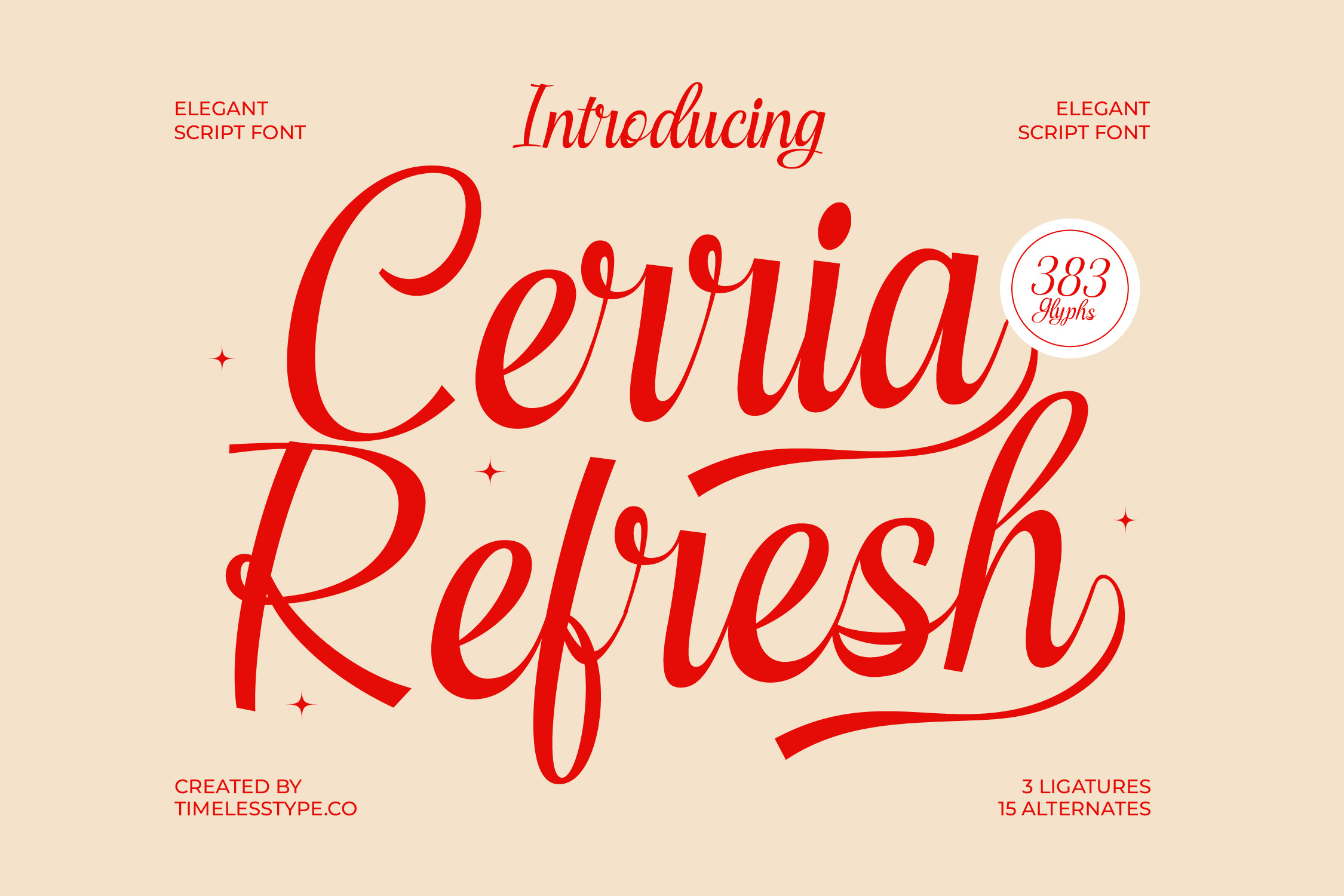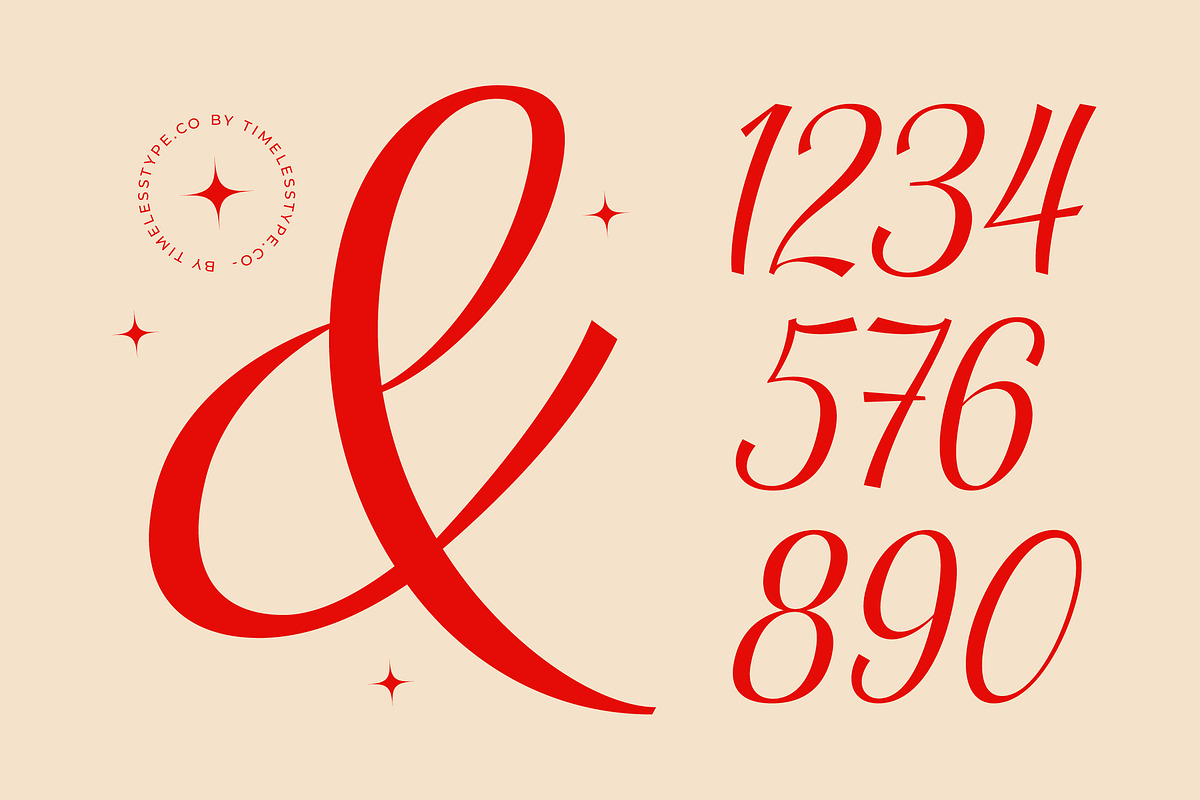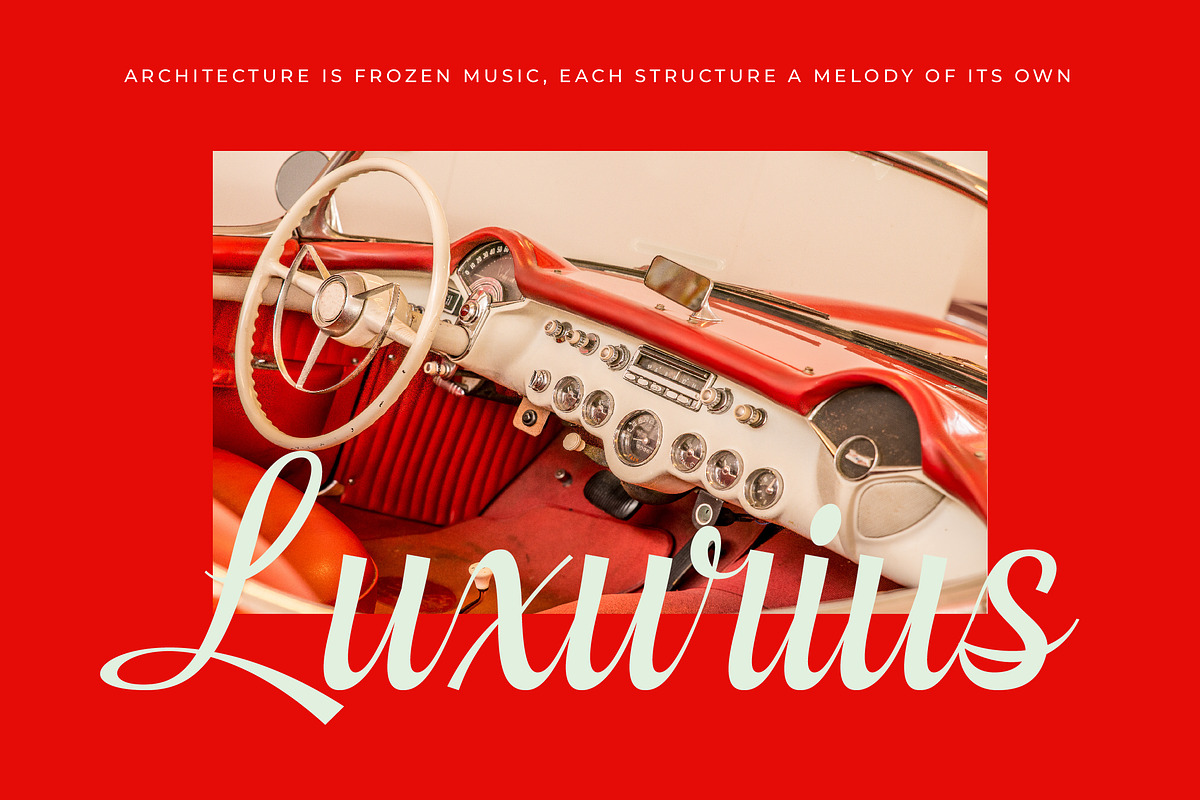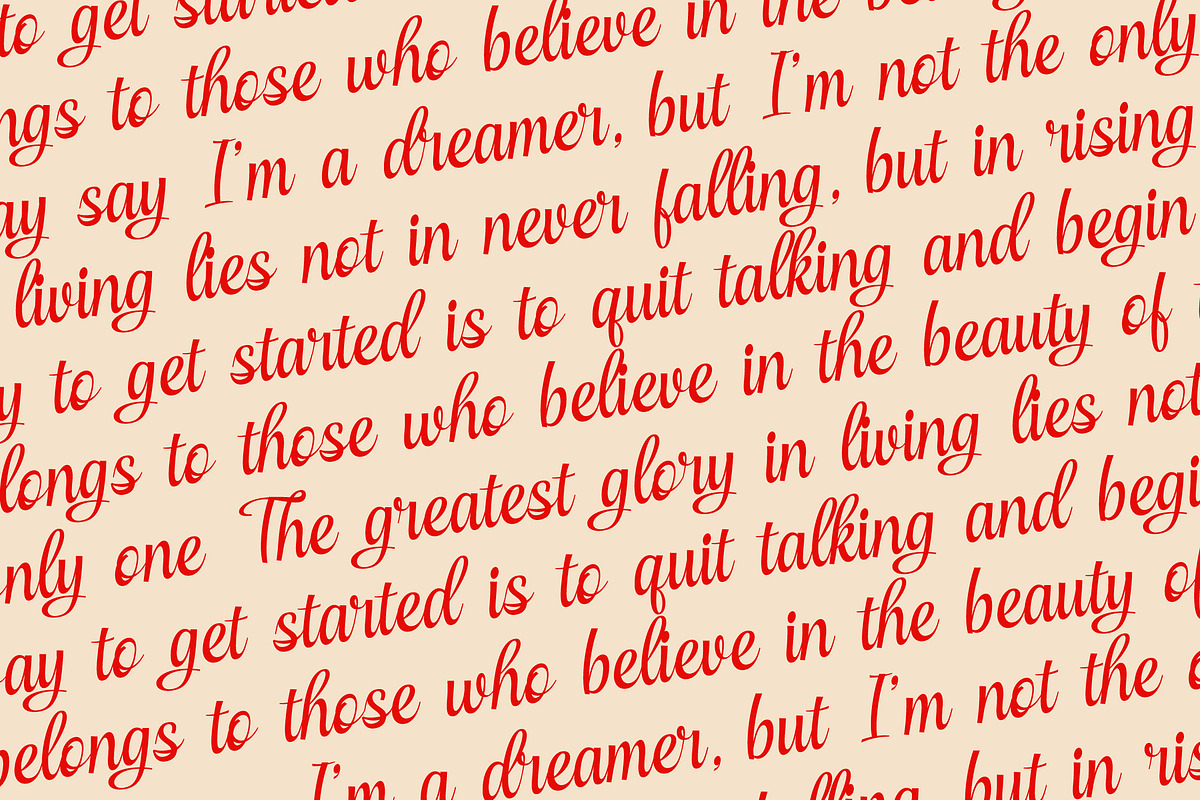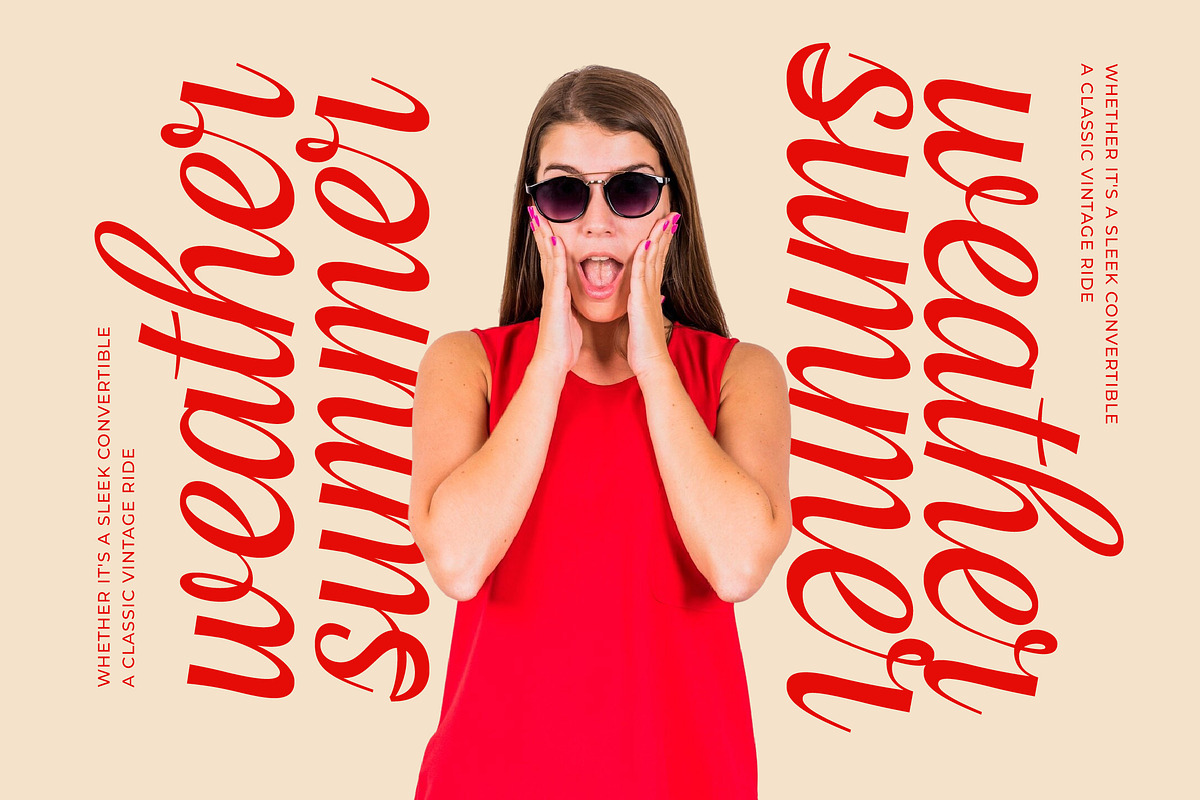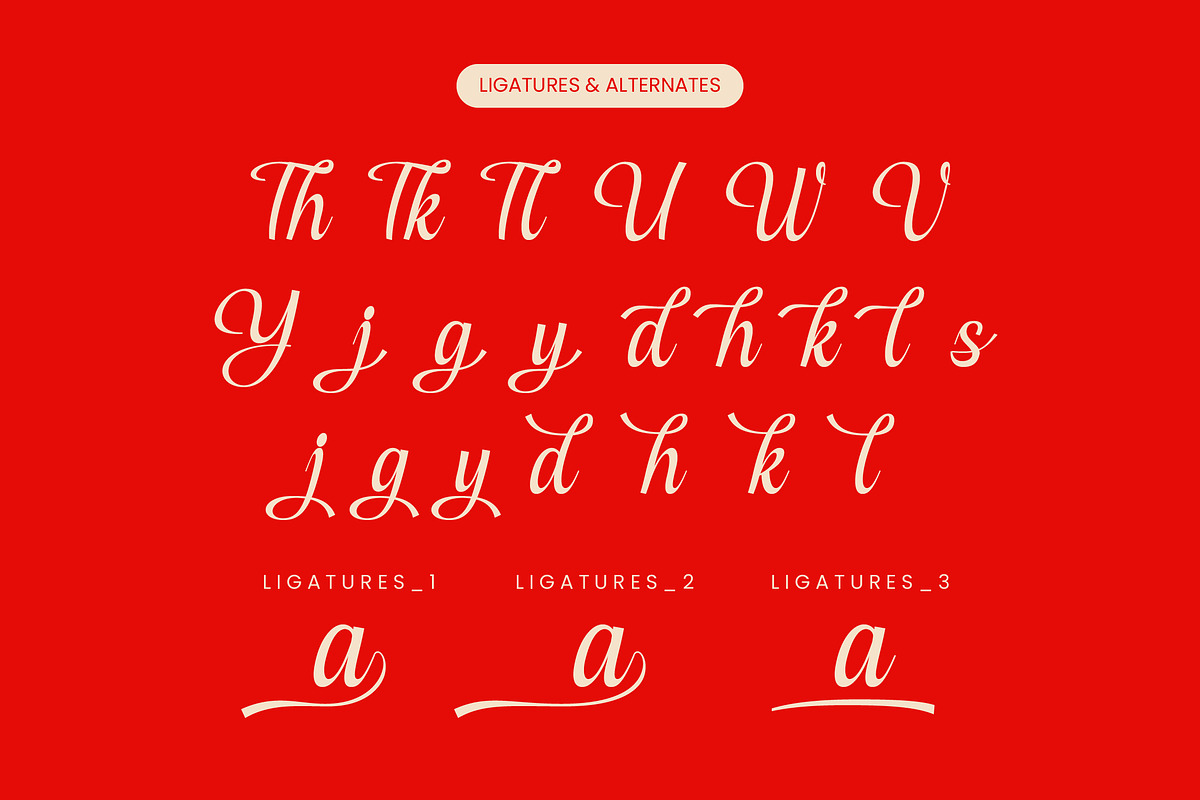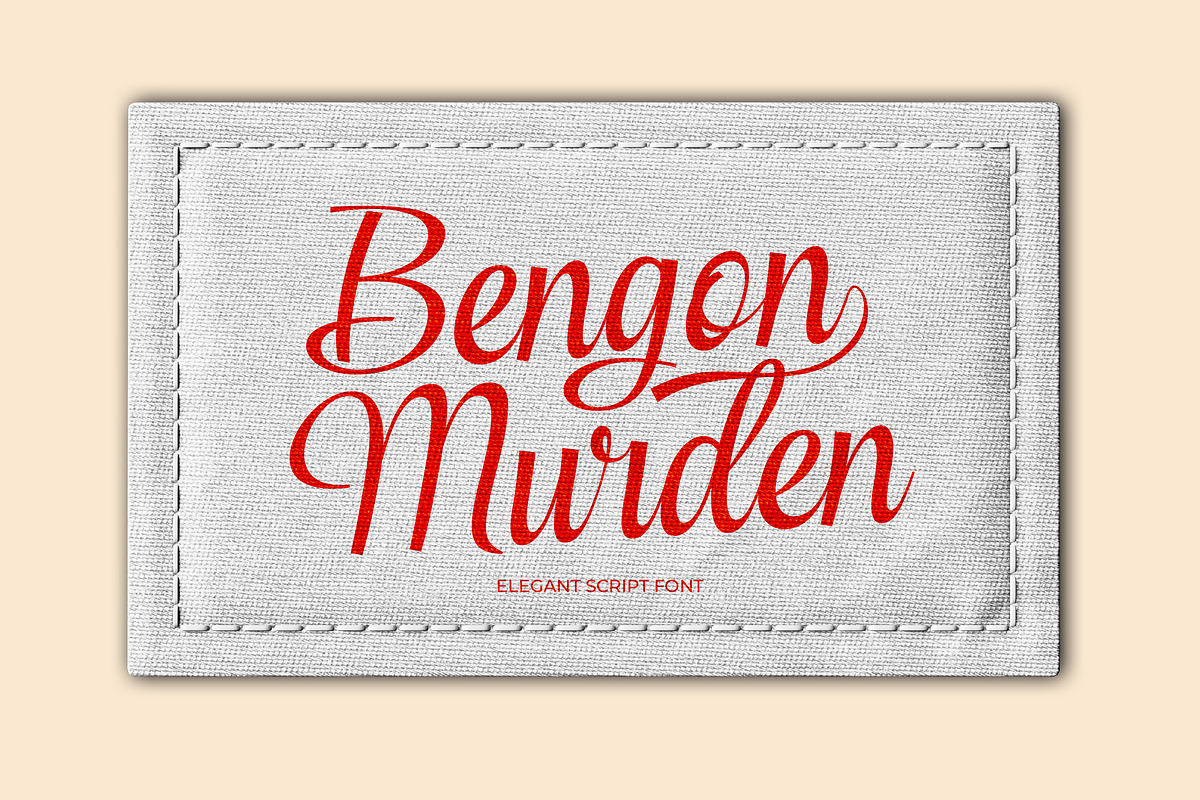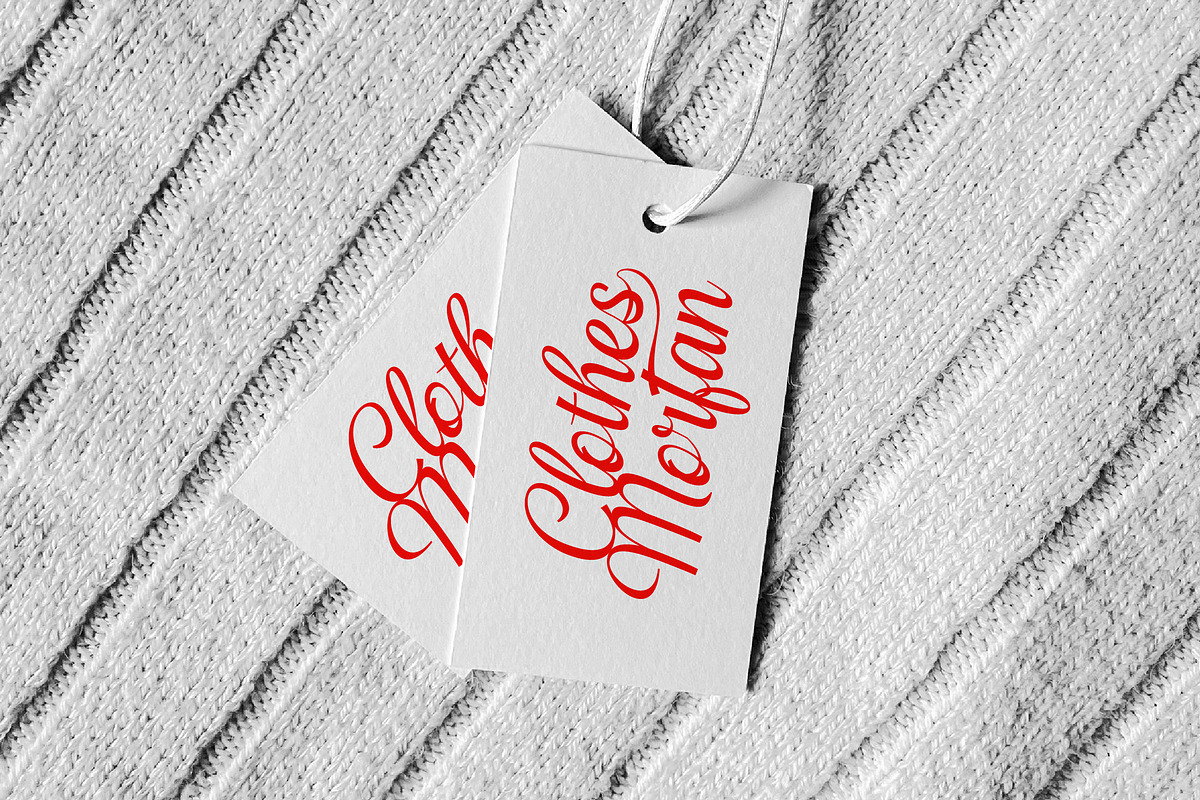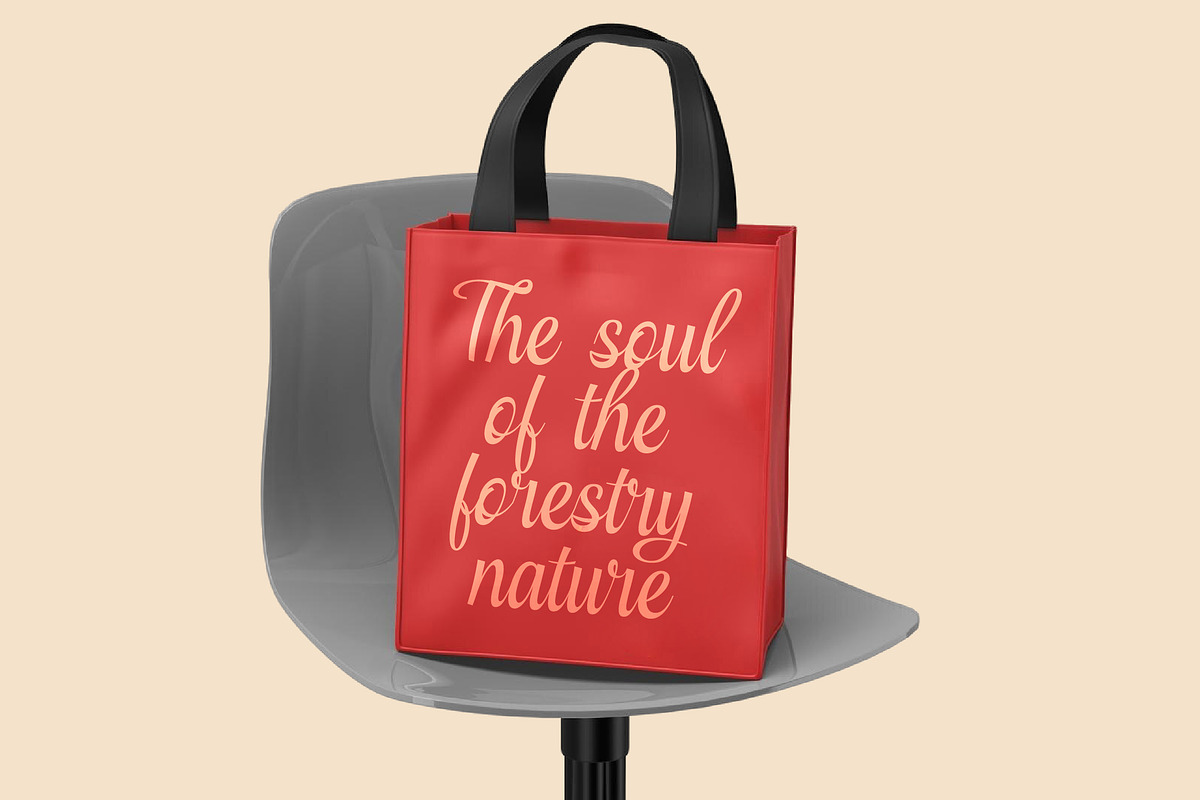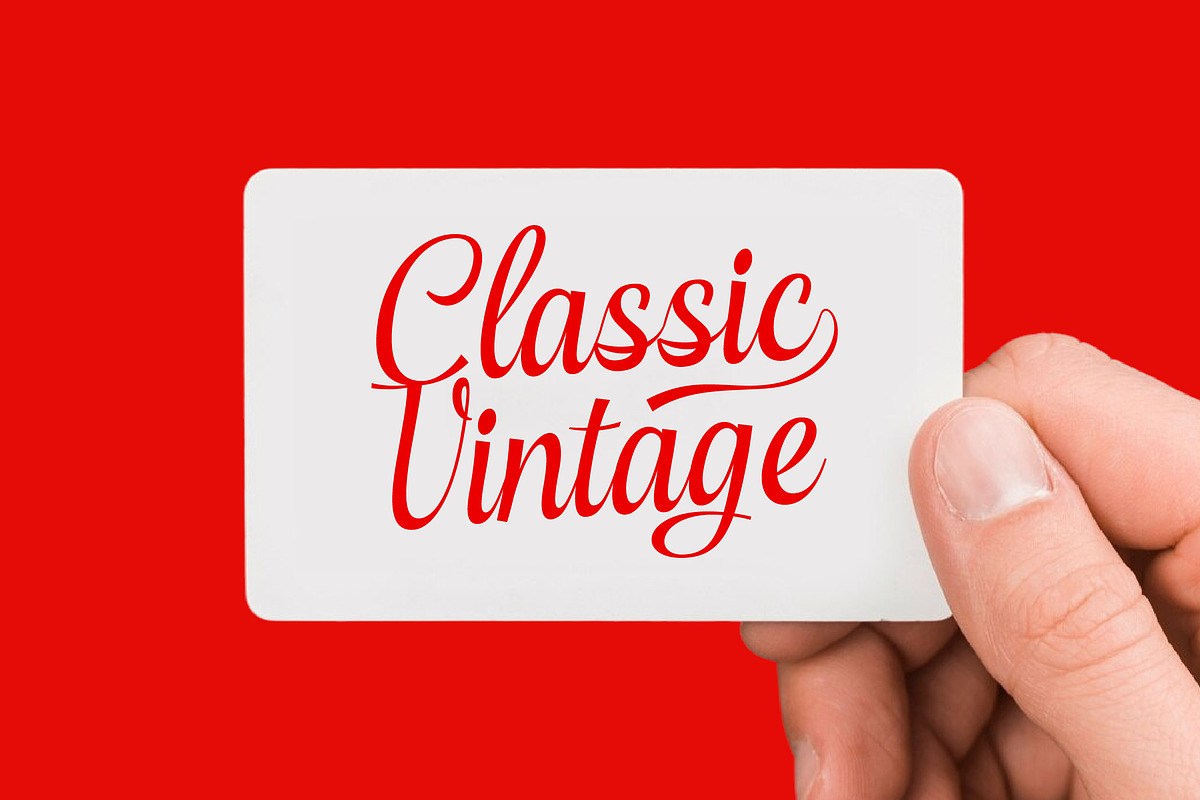
Cerria Refresh Elegant Script Font
Elevate your creative projects with the timeless allure of Cerria Refresh, a typeface designed to infuse every word with a sense of graceful movement. This Cerria Refresh script captures the essence of fluid elegance, making it a definitive choice for designers seeking a balance between classic charm and contemporary flair.
Inspired by the rhythmic beauty of traditional calligraphy and the effortless strokes of mid-century lettering, this font evokes a nostalgic yet refreshed atmosphere. It draws its soul from the art of hand-painted signage and the delicate ink-on-paper textures found in vintage editorial layouts.
The personality of this typeface is defined by its modern serif display sensibilities and luxury typography appeal. It delivers a high-contrast serif feel through its weighted strokes, ensuring an editorial font presence that creates an immediate branding impact for high-end clients.
Aligning perfectly with the current modern serif trend, this font stands out as one of those essential editorial display fonts that every designer needs in their toolkit. Its character-driven typography addresses the growing demand for authentic, human-centric design in an increasingly digital world.
This versatile script is the ideal solution for high-impact logo design and comprehensive branding systems that require a touch of sophistication. From high-fashion editorial spreads and luxury packaging to exquisite wedding stationery and upscale fashion retail assets, it provides a seamless aesthetic transition across all media.
The package is technically robust, featuring a suite of ligatures, alternates, and decorative swashes that allow for custom typographic flourishes. With its wide range of multilingual support and international characters, it ensures your message reaches a global audience with ease.